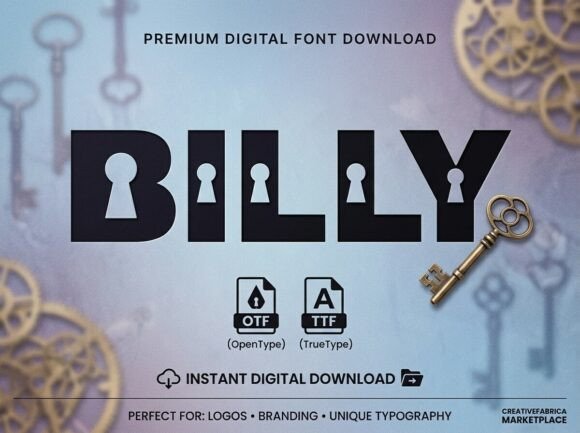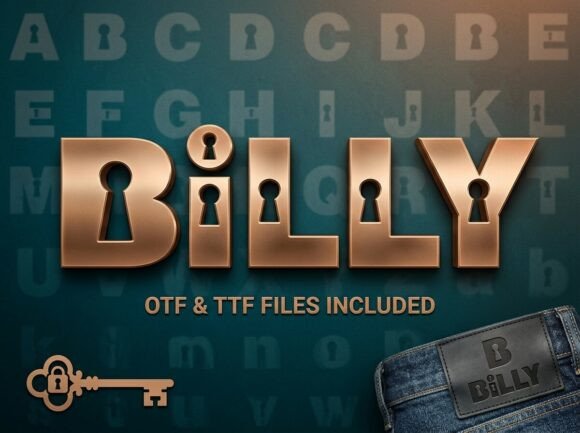
Billy Font: The Ultimate Decorative Display Font for Creative Designs
Are you tired of using the same old fonts for your designs? Look no further than Billy Font, a stunning decorative display font that’s sure to turn heads. With its unique artistic elements and strong visual personality, this font is perfect for creators who want to break away from the ordinary and make a statement.
What Makes Billy Font So Special?
Billy Font is a meticulously crafted font that features intricate details and creative letterforms. Its bold and eye-catching design makes it ideal for high-impact designs where the typography needs to do the talking. Whether you’re designing a modern poster, a unique brand identity, or eye-catching social media content, Billy Font adds an instant “wow” factor to any project.
One of the best things about Billy Font is its versatility. This font is perfect for a wide range of design applications, including:
- Poster Design: Create headlines that people can’t look away from. Billy Font is perfect for designing attention-grabbing posters that demand attention.
- Branding & Logos: Build a unique identity for creative businesses. With its bold and artistic design, Billy Font is ideal for creating memorable logos and brand identities.
- Apparel & Merch: Perfect for T-shirts, hoodies, and tote bag designs. Billy Font adds a touch of personality and style to any apparel or merchandise design.
- Social Media: Make your quotes and announcements stand out in the feed. This font is perfect for creating eye-catching social media content that gets noticed.
- Packaging: Give your products a premium feel with Billy Font. This font is ideal for designing labels, packaging, and other materials that require a bold and attention-grabbing design.
Why Choose Billy Font?
So, why should you choose Billy Font for your next design project? Here are just a few reasons:
- Unique Design: Billy Font features a unique and artistic design that’s sure to stand out from the crowd.
- High-Impact Typography: This font is perfect for designs where the typography needs to do the talking. Its bold and eye-catching design makes it ideal for high-impact designs.
- Professional and Polished Finish: Despite its bold and artistic design, Billy Font maintains a professional and polished finish that’s perfect for a wide range of design applications.
Tips for Using Billy Font
Here are a few tips for using Billy Font in your designs:
- Use it Sparingly: While Billy Font is perfect for high-impact designs, it’s best to use it sparingly. Use it for headlines or key messages, and pair it with a simpler font for body text.
- Experiment with Colors: Billy Font looks great in a wide range of colors. Experiment with different colors and gradients to find the perfect look for your design.
- Pay Attention to Legibility: While Billy Font is bold and eye-catching, it’s still important to pay attention to legibility. Make sure your text is easy to read, especially if you’re using it for body text.
Billy Font is a stunning decorative display font that’s perfect for creators who want to break away from the ordinary. With its unique artistic elements and strong visual personality, this font is ideal for high-impact designs where the typography needs to do the talking. Whether you’re designing a modern poster, a unique brand identity, or eye-catching social media content, Billy Font adds an instant “wow” factor to any project. So why settle for ordinary fonts when you can make a statement with Billy Font?